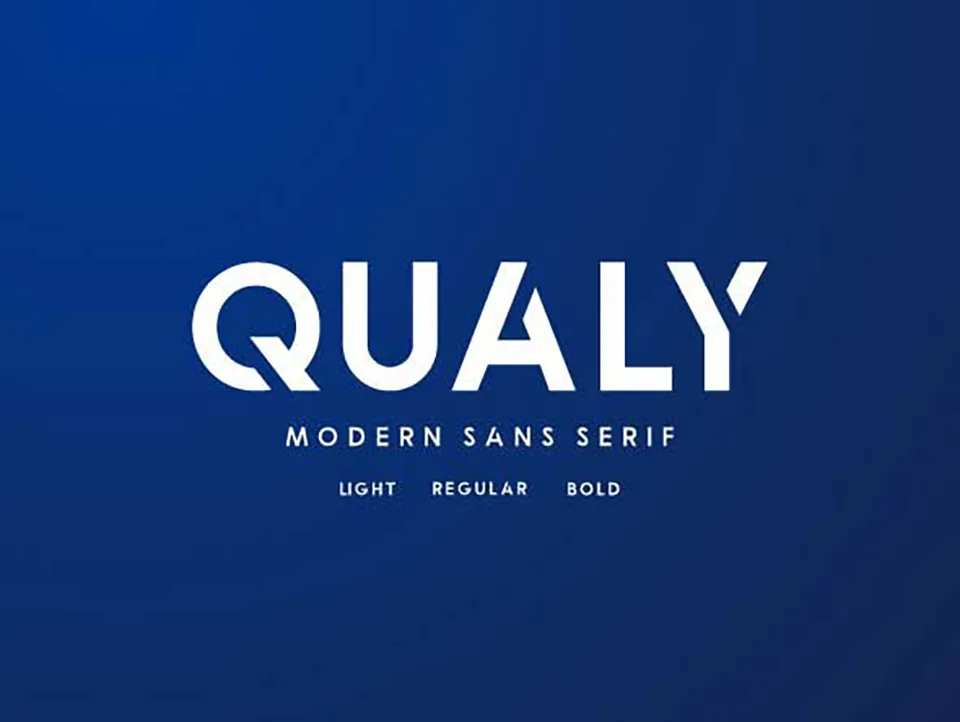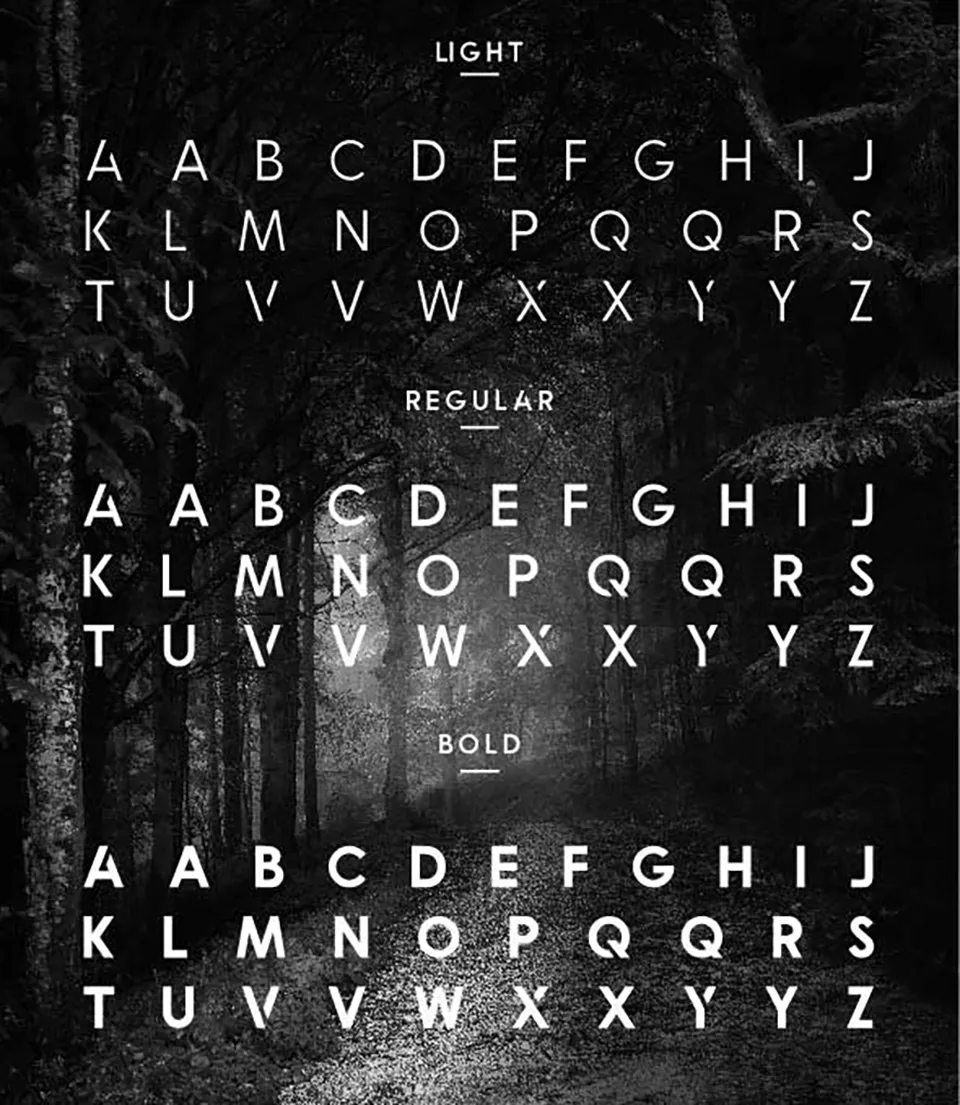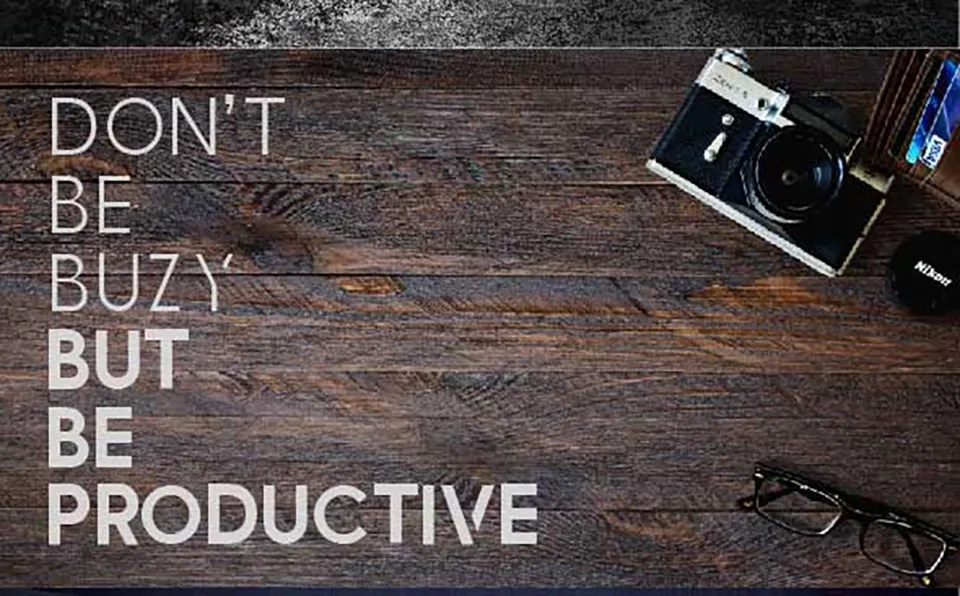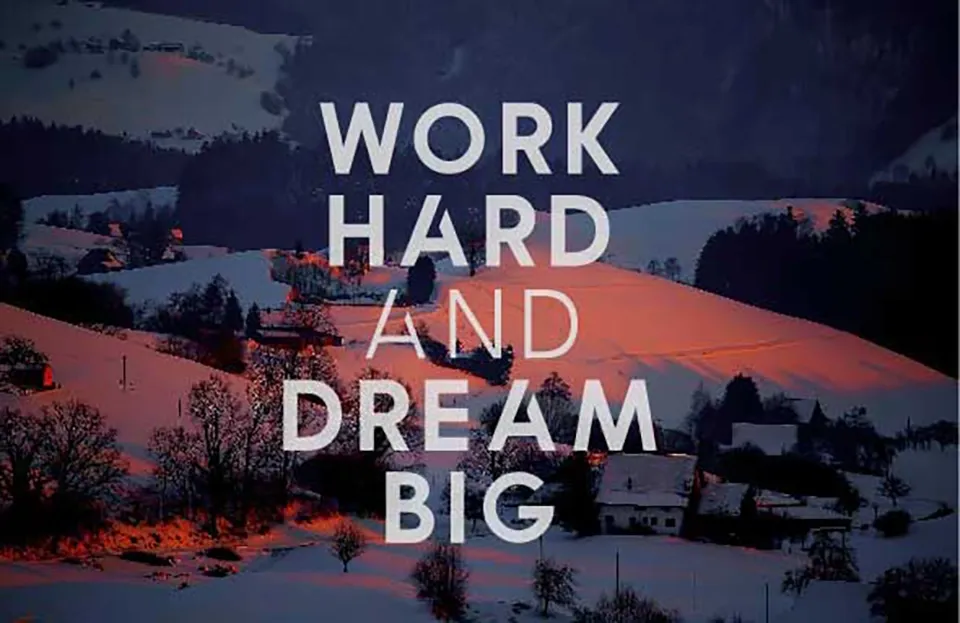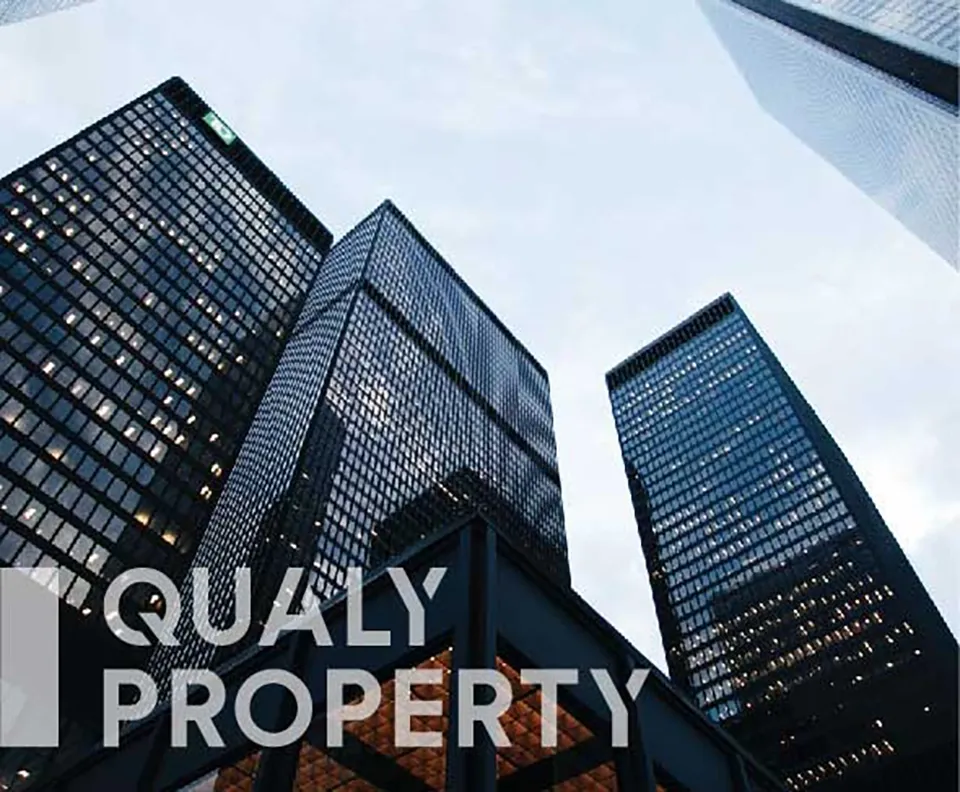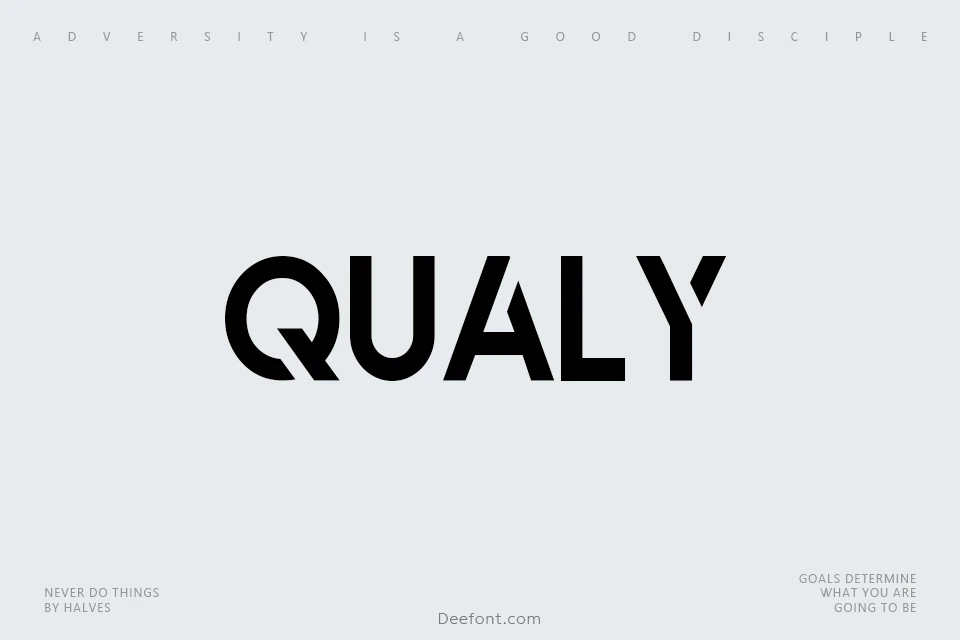
Qualy Font
The Qualy Logo Font is a modern sans serif typeface designed specifically for logo and branding applications. Its clean, geometric letterforms and unique character shapes make it ideal for creating distinctive, high-impact visual identities. With an extensive glyph set supporting extended Latin and Cyrillic scripts, Qualy Logo Font brings an ambitious, creative, and trendy feel to any project, though it is best suited for headlines and logo design rather than long-form text.
Designed by:Creative KillerWebsite